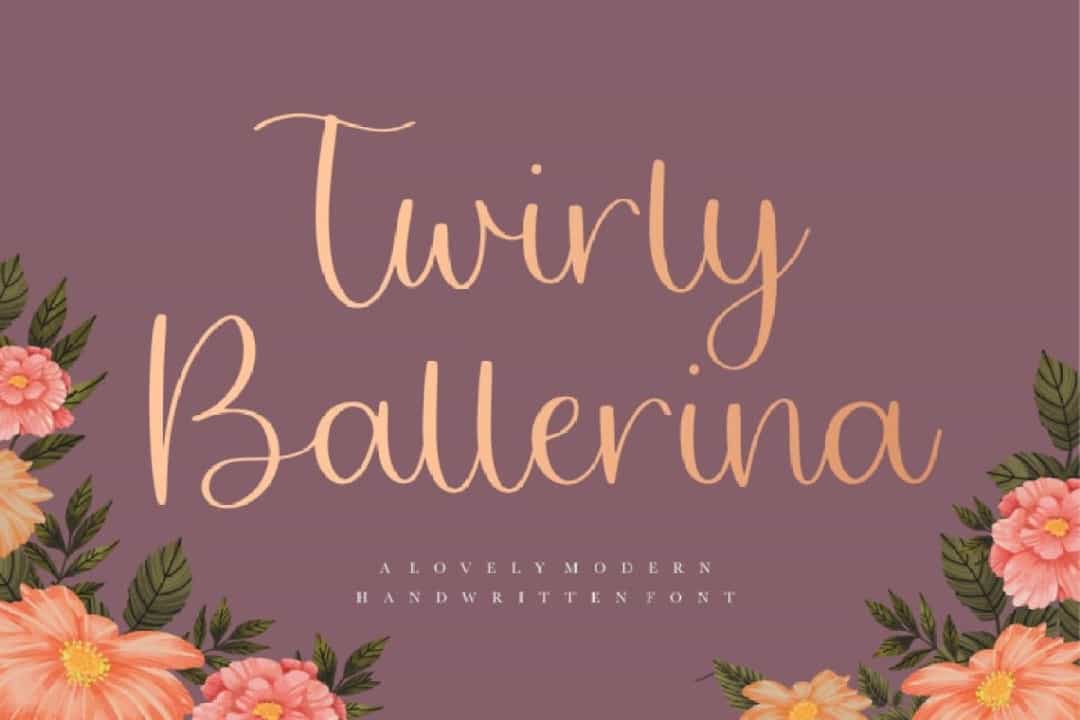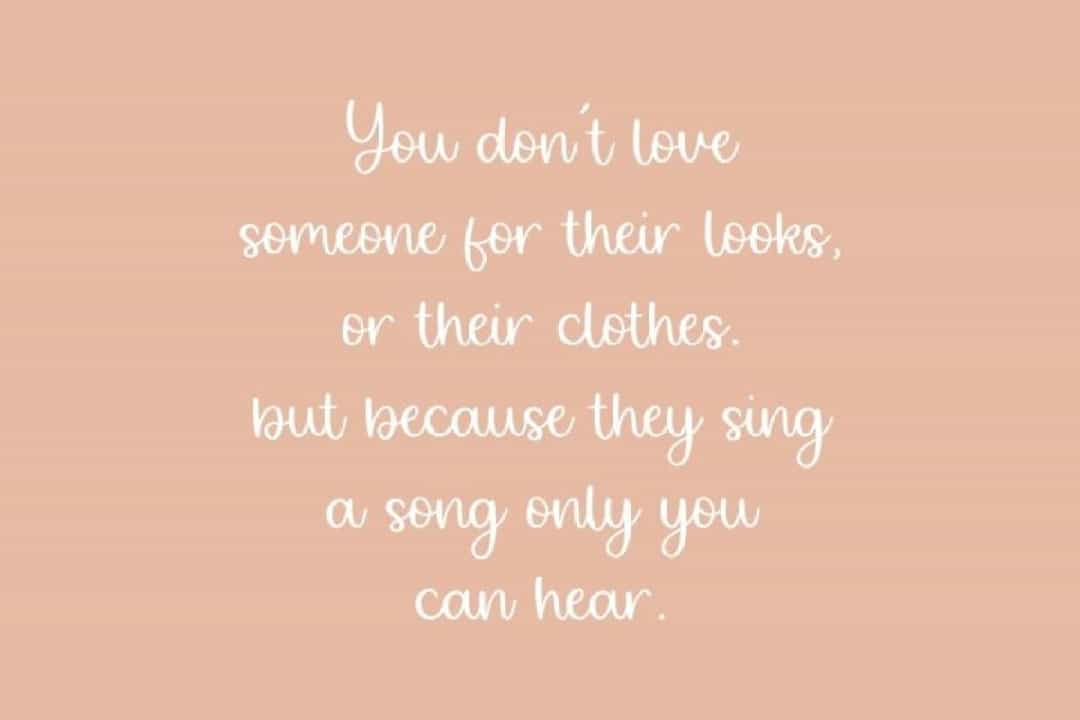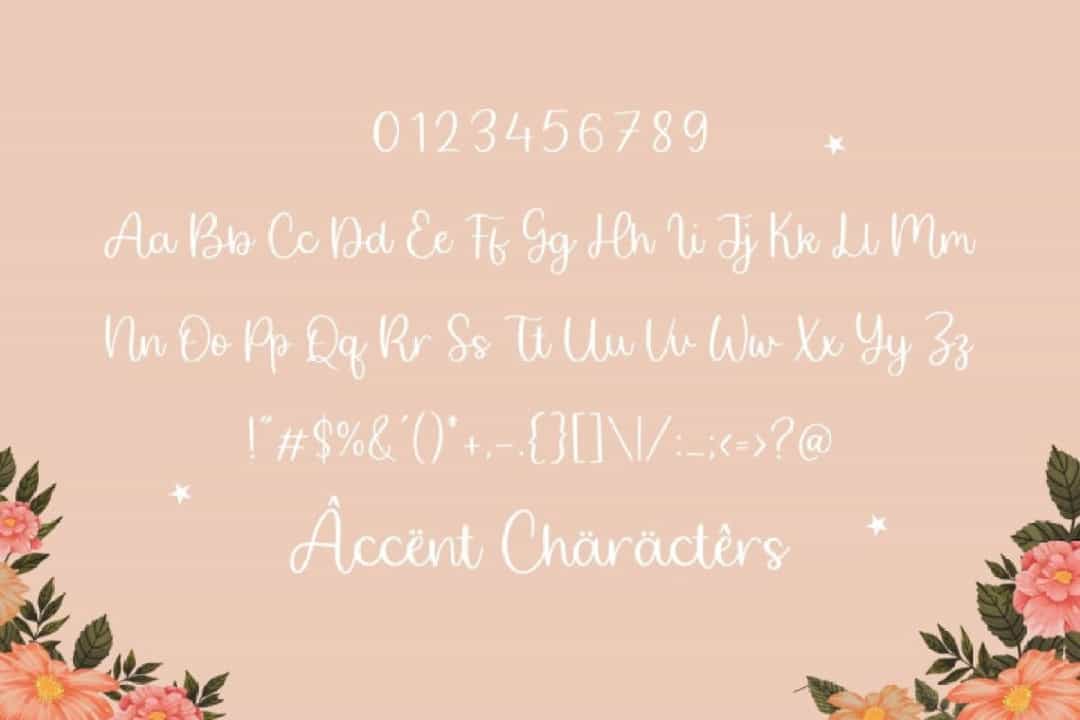
Discover Twirly Ballerina Handwritten Script Font, part of the Handwritten Script collection—a versatile and unique font perfect for adding a personal touch to your projects. Download it for free and enjoy crafting designs with style, from invitations to social media posts. This font is available exclusively for personal use, giving you the freedom to create without limits. Unlock your creativity with Twirly Ballerina Handwritten Script Font today!
Twirly Ballerina is a beautiful calligraphy font with a elegant and modern look for today’s graphic designers. Suitable for logos, cartons, product packaging, megazine weddings social media, or just for writing words on backgrounds; Twirly Ballerina contains TTF and additional multilingual characters.